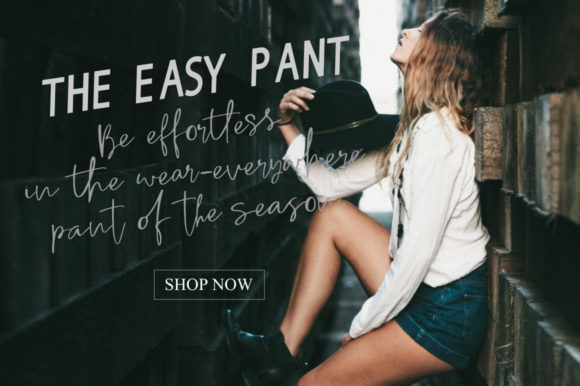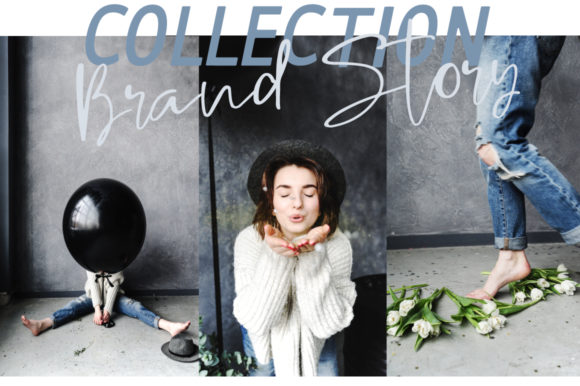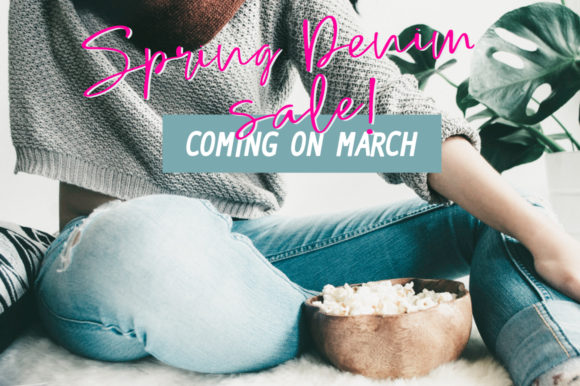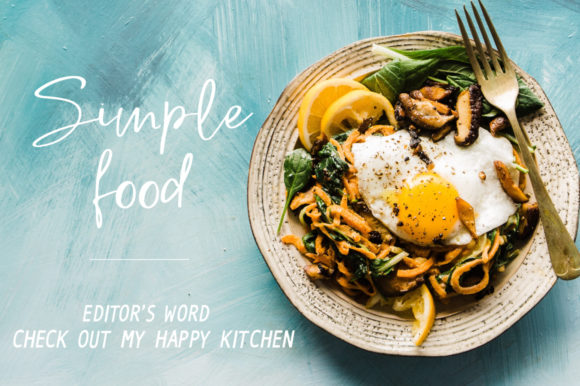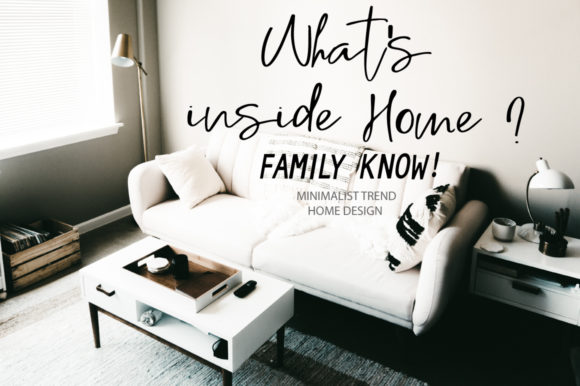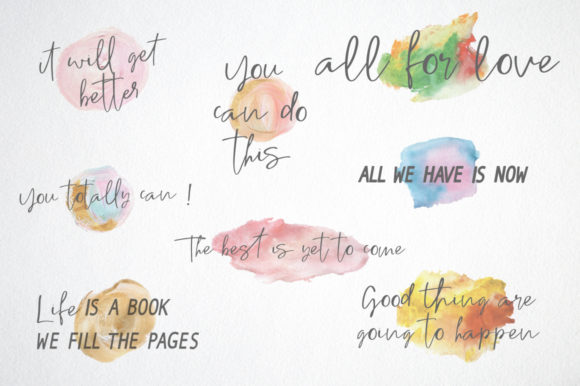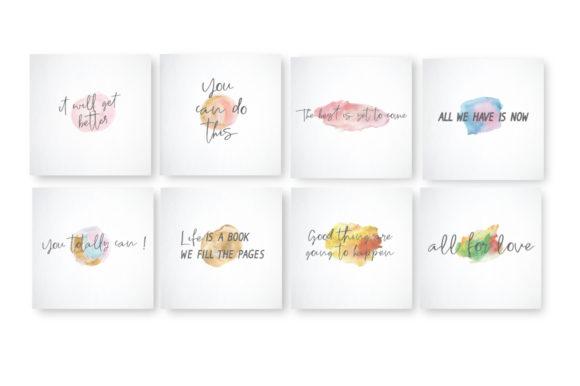
The Subject Duo Font
About The Subject Duo Font
The Subject Duo is a fashionable and contemporary pair of signature & sans fonts, designed to perfectly compliment one another.